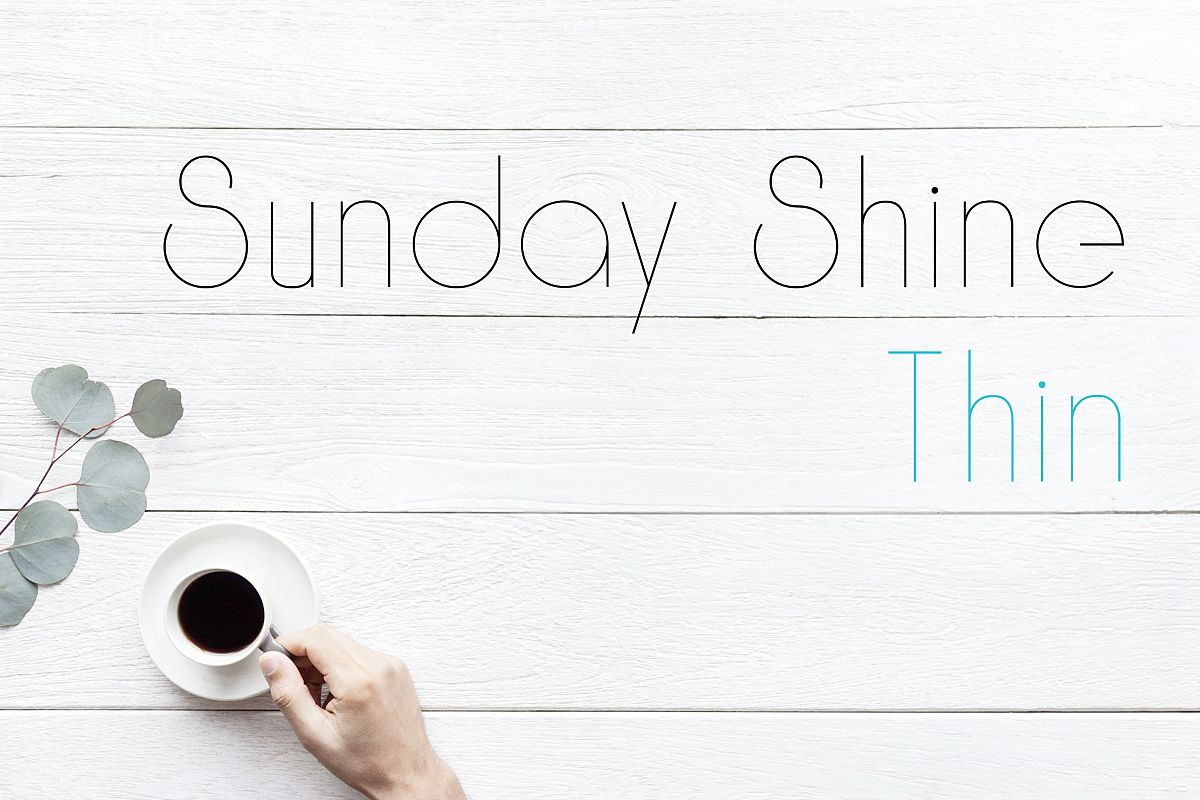
Introducing The Sunday Shine - Brand New Geometrical Display Font, This is the Thin Version of The Sunday Shine Font Family.
Sunday Shine Font will be perfect choice for the Corporate, Business, Advertisement, Outdoor Use, Invitations and much more.